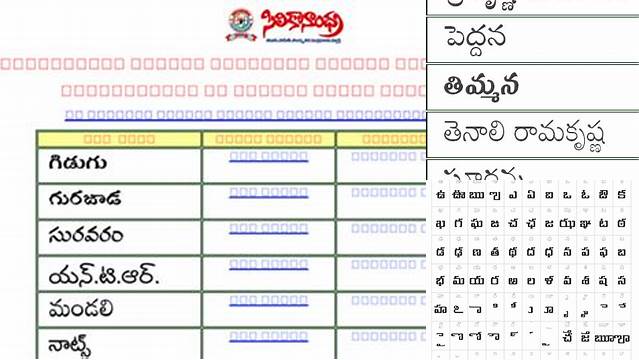
1. Understanding Silicon Andhra Fonts
Before we jump into the download process, let's quickly understand what Silicon Andhra Telugu fonts are all about. Silicon Andhra is a non-profit organization dedicated to promoting Telugu language and culture. One of their key contributions is creating and distributing high-quality Telugu fonts for free. These fonts are designed to be visually appealing and highly readable, making them perfect for various applications like document creation, web design, and even graphic design projects. The beauty of these fonts lies in their elegant design and the fact that they are available for free, making Telugu typography accessible to everyone. The goal is to ensure that Telugu language content looks its best, whether it's in print or on screen. So, if you're working on a project that requires Telugu script, Silicon Andhra fonts are an excellent choice. They provide a professional and polished look while supporting the correct rendering of Telugu characters. Remember, having the right font can significantly improve the overall aesthetics and readability of your work, especially when dealing with complex scripts like Telugu.
2. Why Choose Silicon Andhra Telugu Fonts?
So, why should you specifically choose Silicon Andhra Telugu fonts over other options? Well, there are several compelling reasons! First and foremost, they are completely free. You don't have to worry about licensing fees or hidden costs. This makes them a fantastic choice for individuals, students, and organizations on a budget. Secondly, Silicon Andhra fonts are known for their quality and readability. They are meticulously designed to ensure that each character is clear and visually appealing, making your text easy to read and understand. This is crucial, especially for languages like Telugu, where character shapes can be complex. Another key advantage is their wide compatibility. Silicon Andhra fonts are designed to work seamlessly with Windows 10 and other operating systems, ensuring that your text displays correctly across different platforms. Plus, they are regularly updated to incorporate the latest linguistic standards and technological advancements. This commitment to quality and accessibility makes Silicon Andhra fonts a top choice for anyone working with Telugu script. Whether you're creating a professional document, designing a website, or simply writing an email, these fonts will help you present your content in the best possible way.
10. Exploring Different Styles of Silicon Andhra Telugu Fonts
The beauty of Silicon Andhra Telugu fonts lies not only in their quality but also in the variety of styles available. Exploring these different styles can help you find the perfect font for your specific needs and preferences. You'll find fonts that are elegant and formal, perfect for professional documents and publications. There are also fonts that are more casual and playful, ideal for creative projects and designs. Some Silicon Andhra fonts are designed with a modern aesthetic, while others have a more traditional and classic feel. This diversity allows you to choose a font that perfectly matches the tone and style of your content. For example, if you're creating a formal invitation, you might opt for a refined and sophisticated font. On the other hand, if you're designing a children's book, a more whimsical and playful font might be a better choice. The Silicon Andhra website and other font repositories often provide previews of the different font styles, allowing you to see how they look before you download them. Take some time to browse through the options and experiment with different fonts to discover your favorites. With such a wide range of styles available, you're sure to find the perfect Silicon Andhra Telugu font for any project!